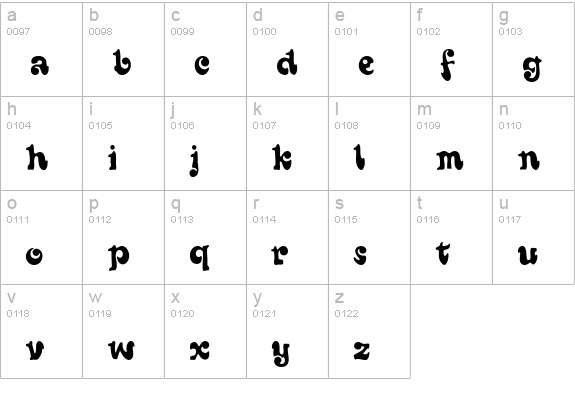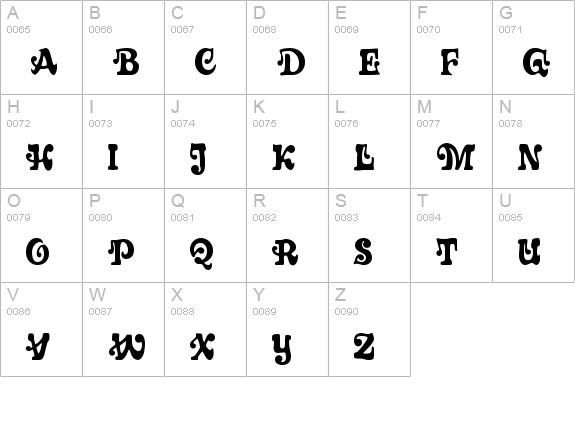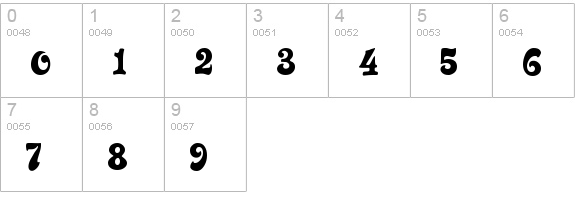
Sixties MF Font Details
The Sixties MF font encapsulates the vibrant and groovy spirit of the 1960s with its bold and playful design. Its retro charm and psychedelic flair make it perfect for projects seeking a nostalgic touch or a retro vibe. This font is a great choice for posters, album covers, branding, and any design project that calls for a touch of vintage cool. Best of all, Sixties MF is available for free download at FontsMarket.com. Embrace the retro aesthetic and add a touch of sixties flair to your designs with this fun and versatile font. Let your creativity flow and transport your audience back to the swinging sixties with Sixties MF font.